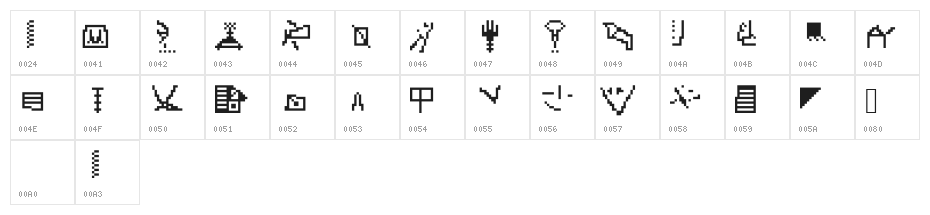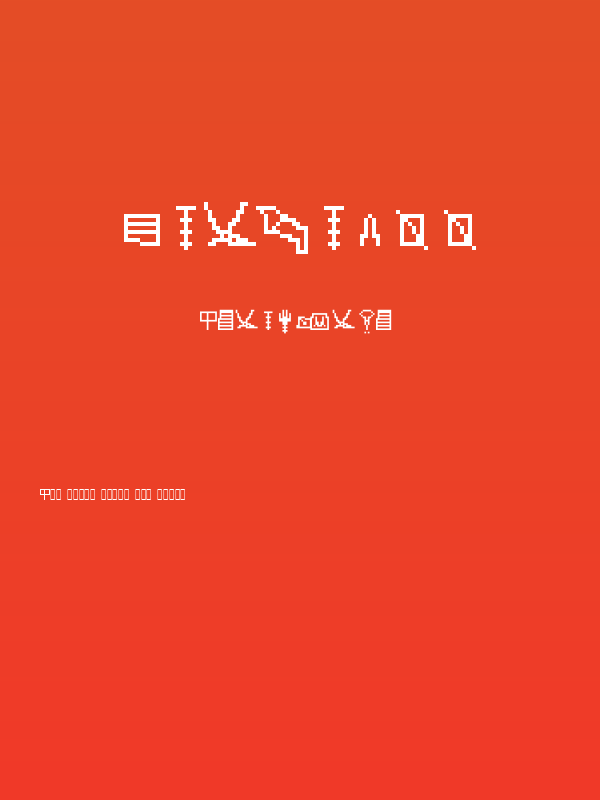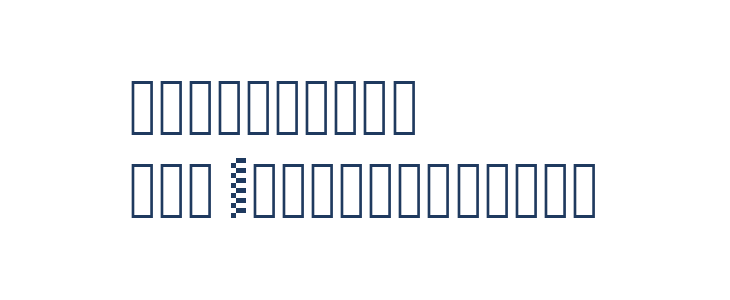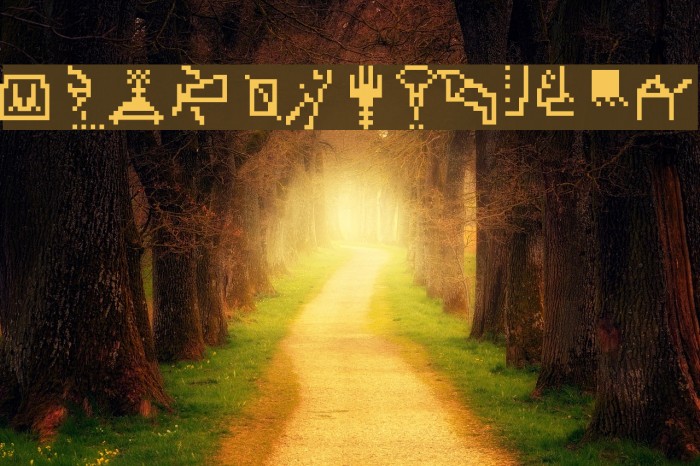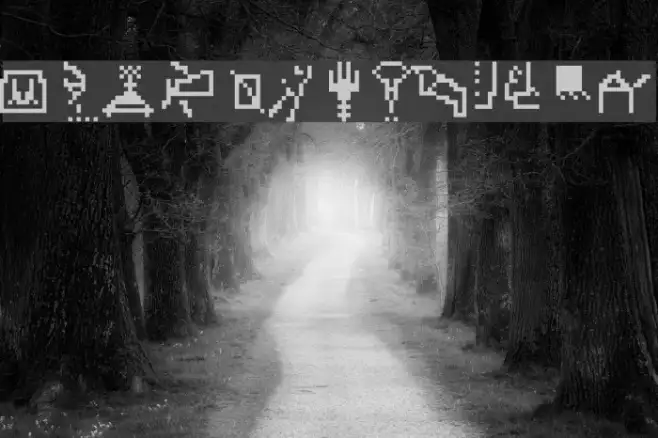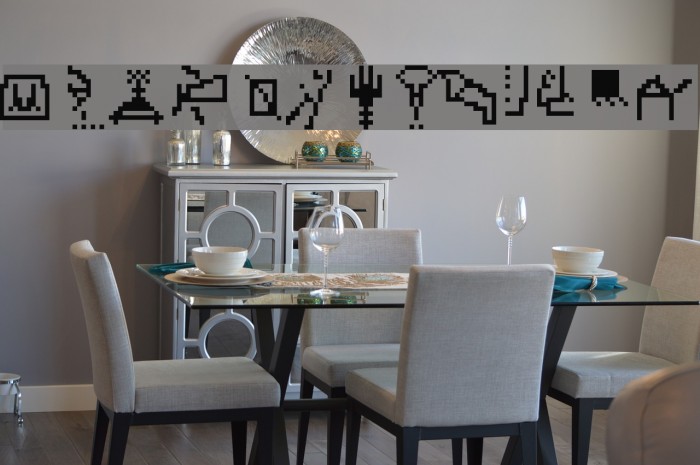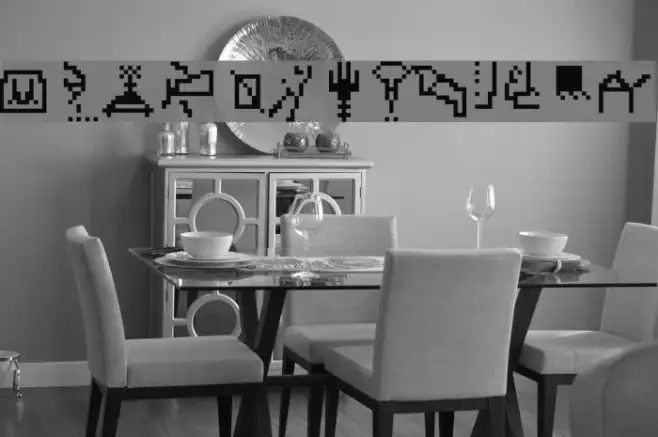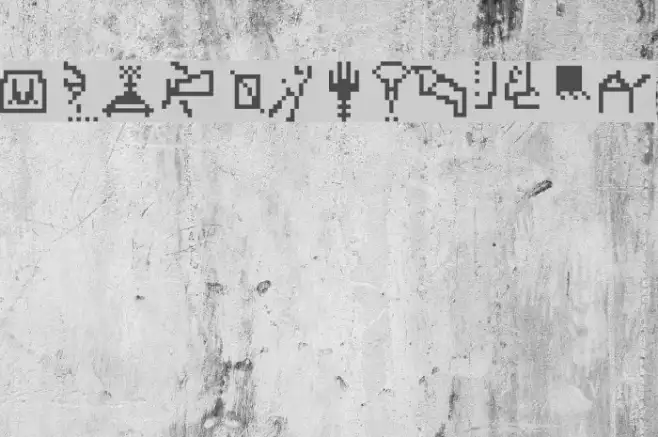
Nopiosee Font
Nopiosee Description
A decorative, pixel-based symbol font inspired by ancient pictographs or cuneiform, featuring geometric, abstract icons instead of traditional Latin characters. Each glyph is constructed with sharp, blocky lines and a consistent grid, evoking a retro digital or game-like aesthetic.
| Overall Style | Decorative, Ancient, Pixel Art |
| Use Case | Logos, Display text, Themed posters, Game interfaces |
| Proposed Projects | Video game UI, fantasy maps, escape room puzzles, educational materials on ancient writing, creative branding. |